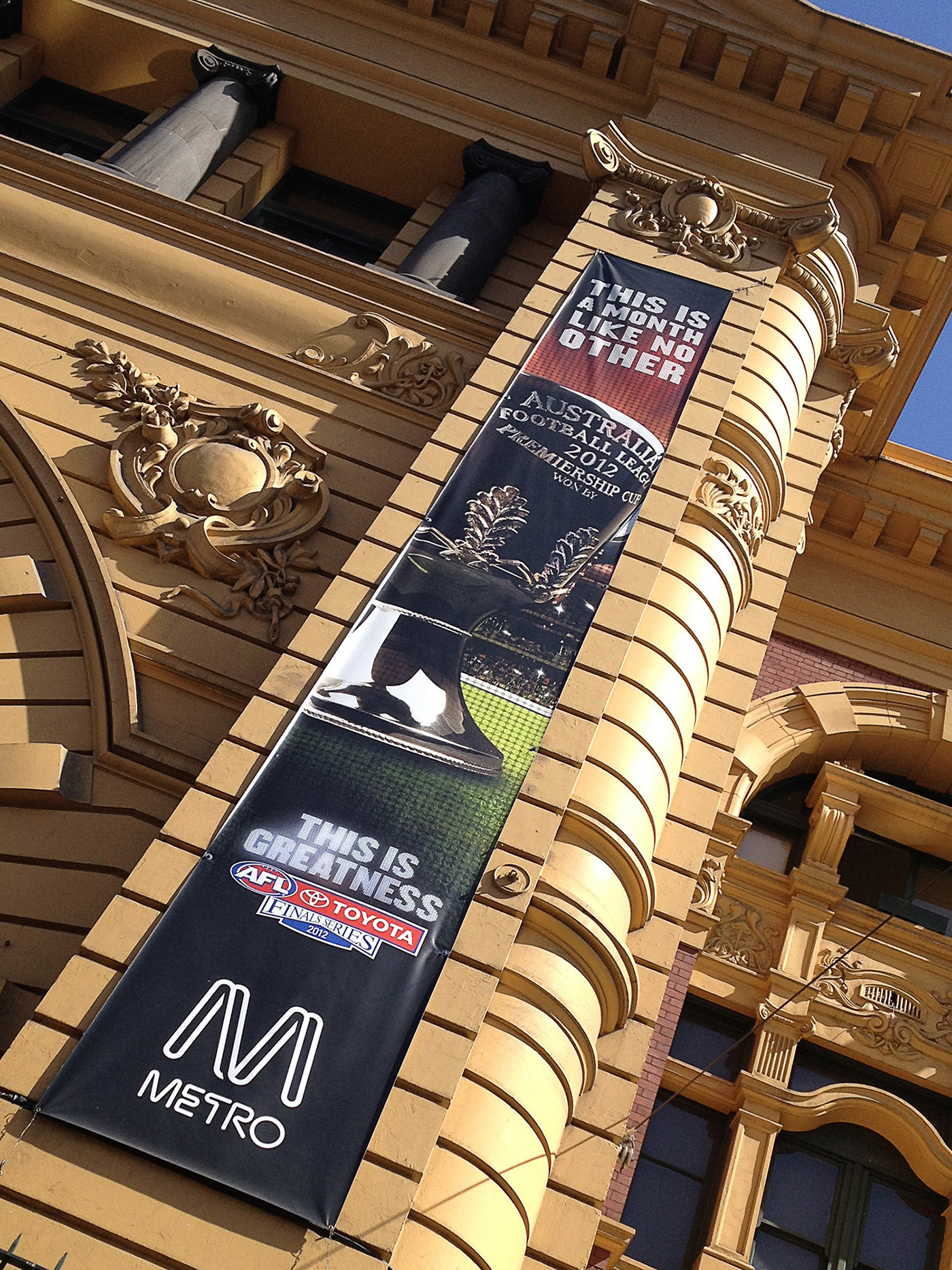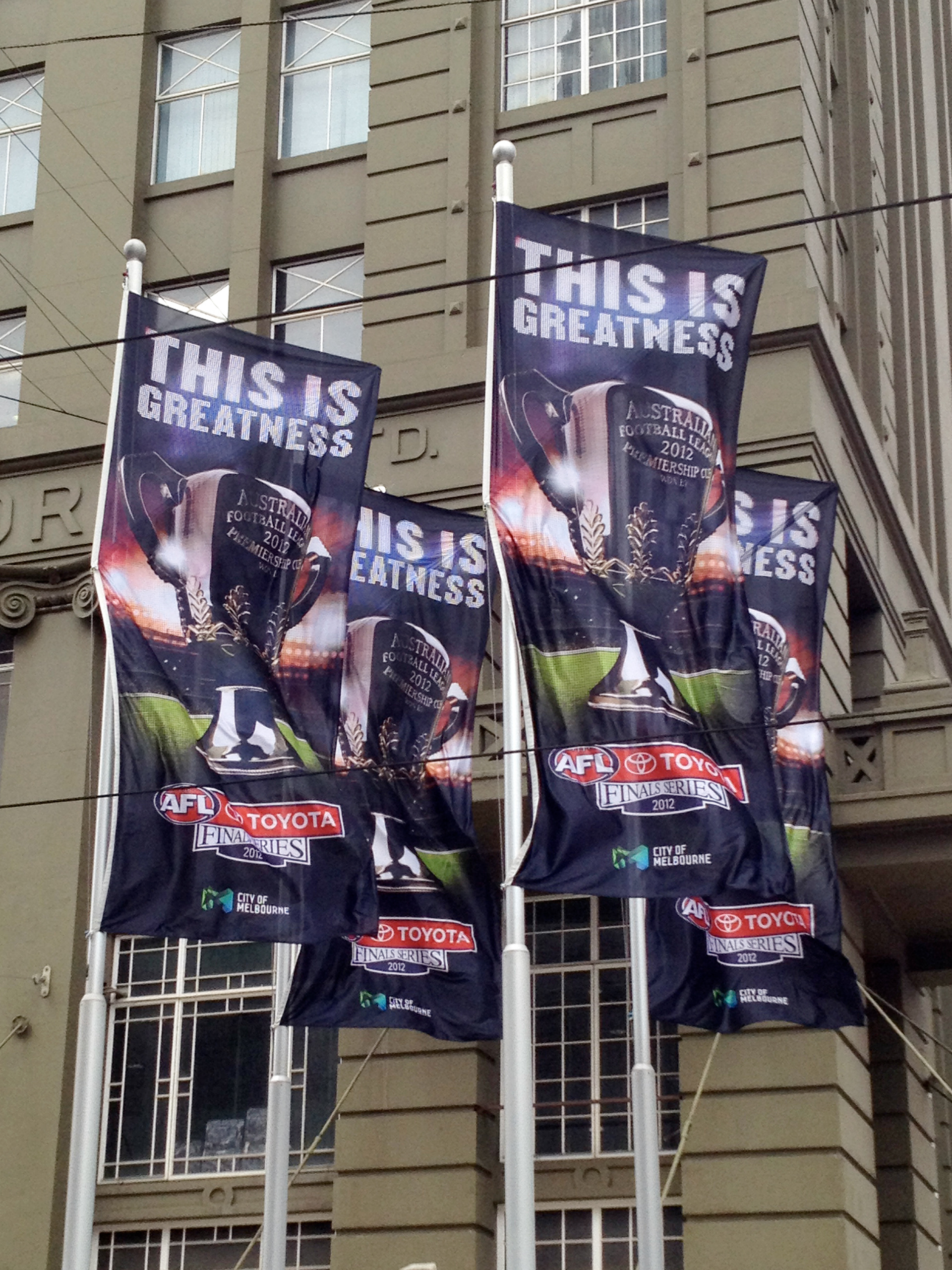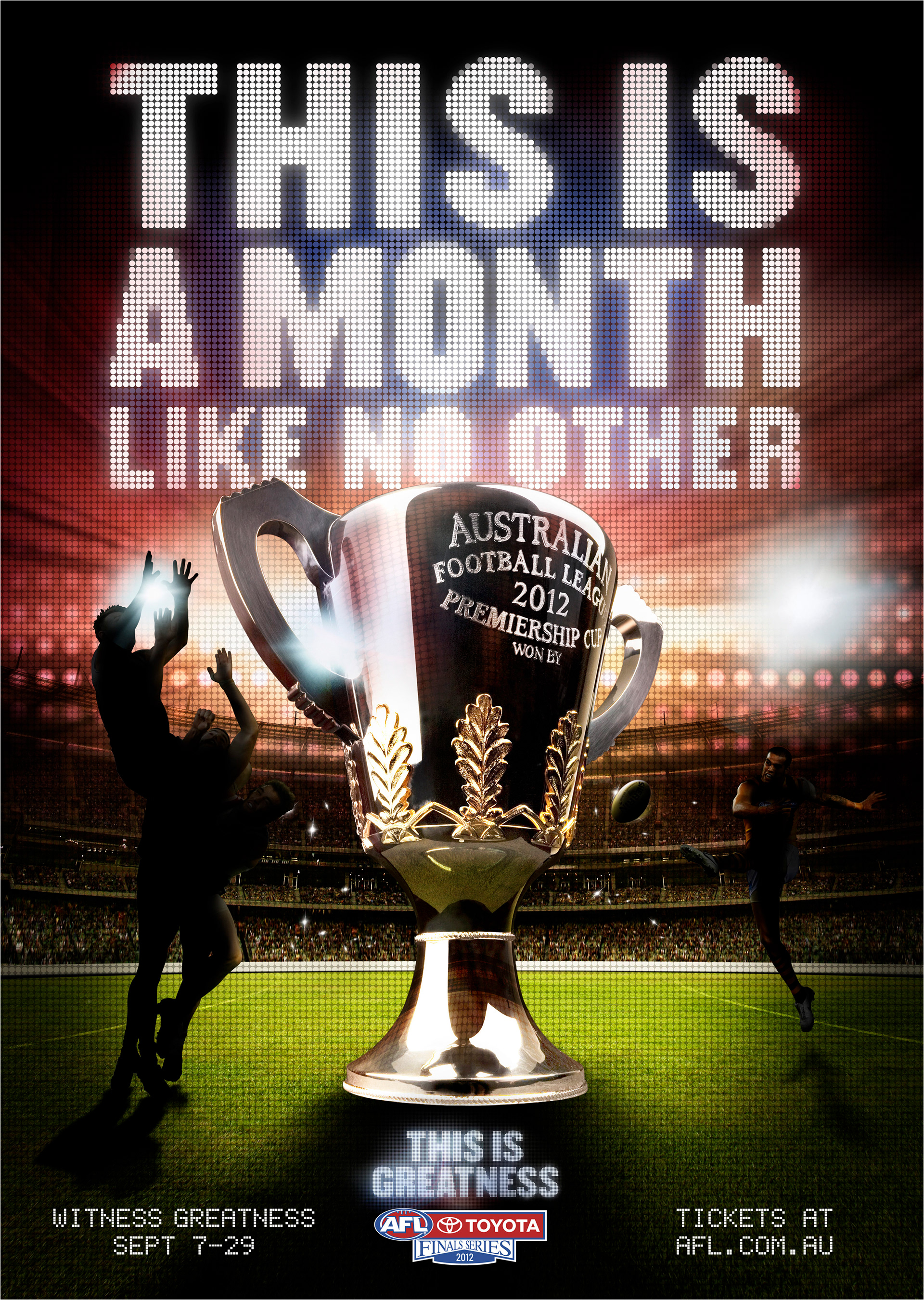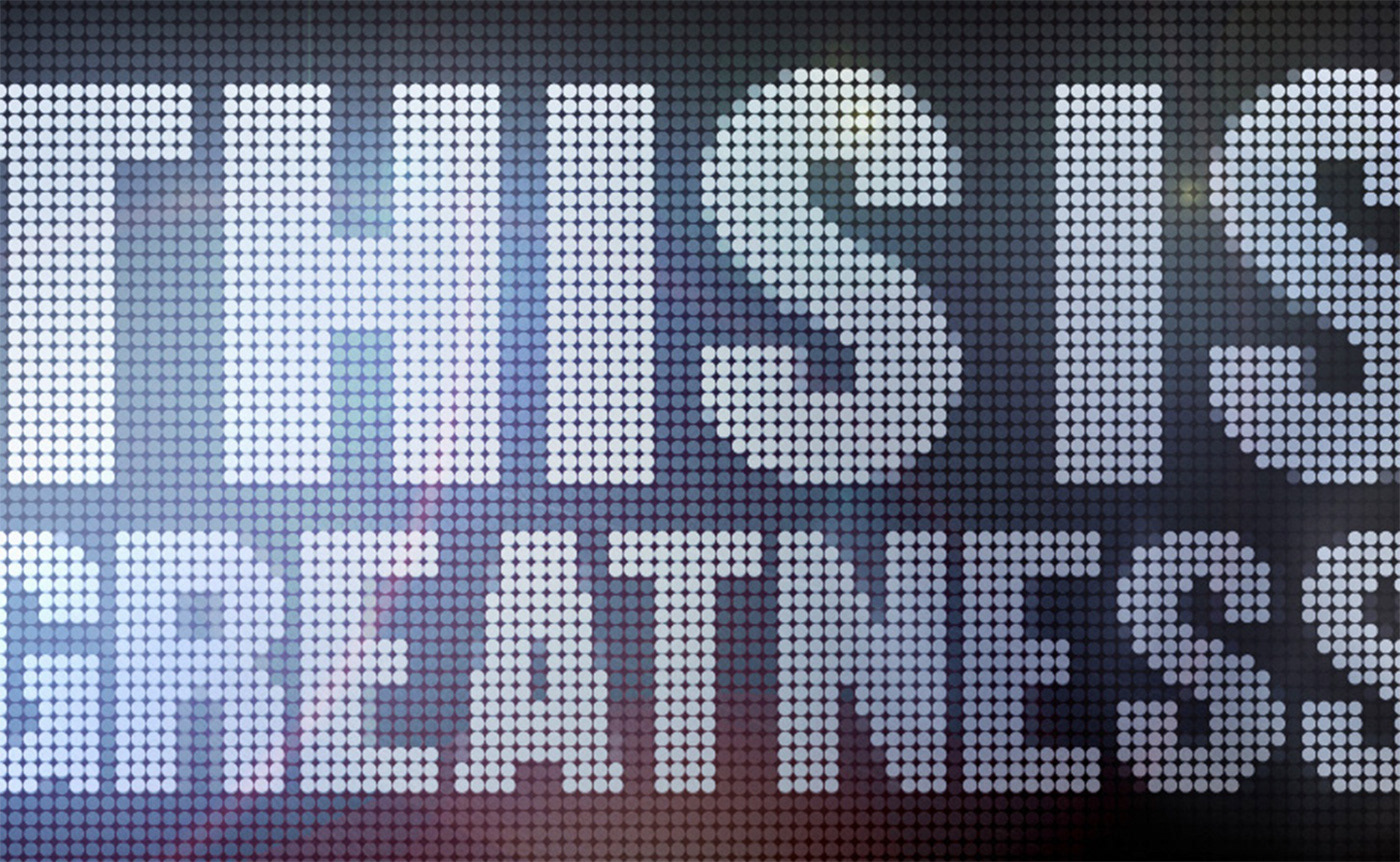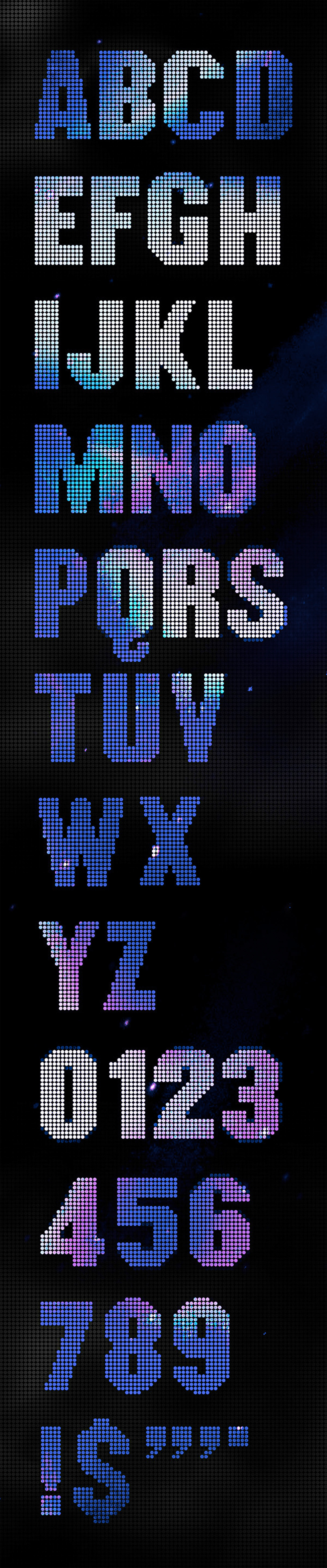
Type lock-ups and headline designed in LED style. Created in Illustrator & Photoshop.
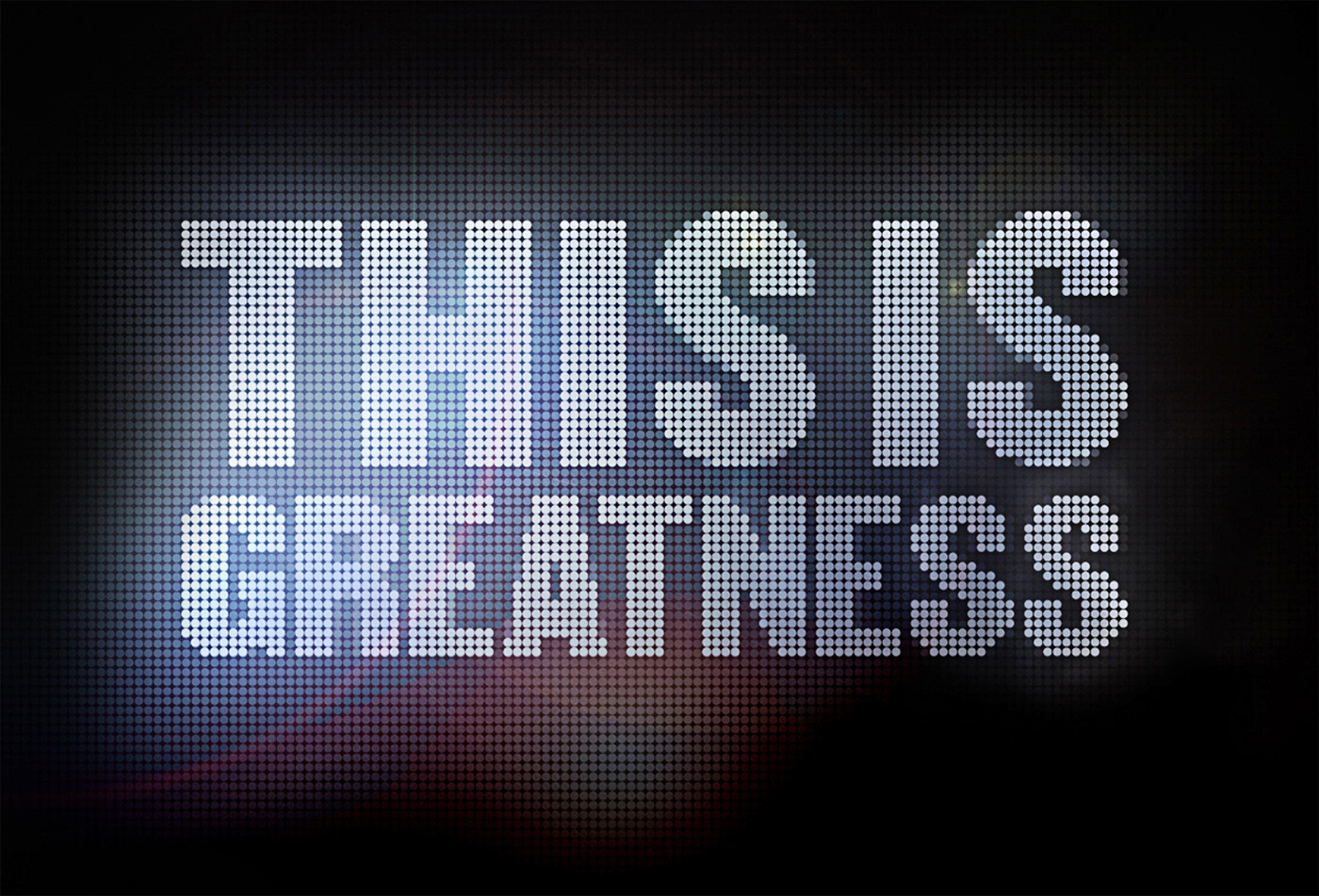
We developed an Open Type font for the campaign.
Hero Poster & Outdoor
TVC
Design elements around Melbourne
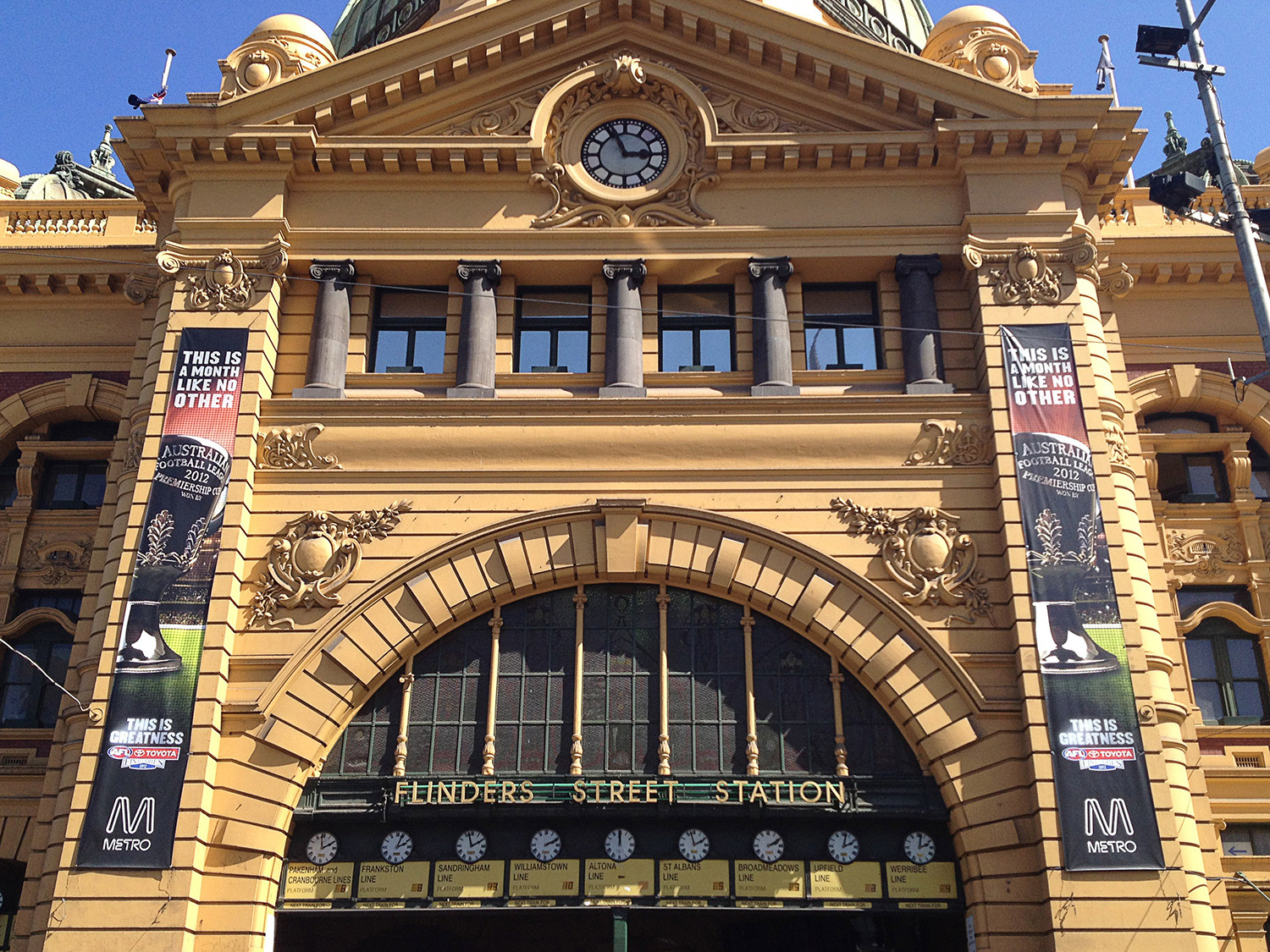
Typeface Design: Marcus Byrne